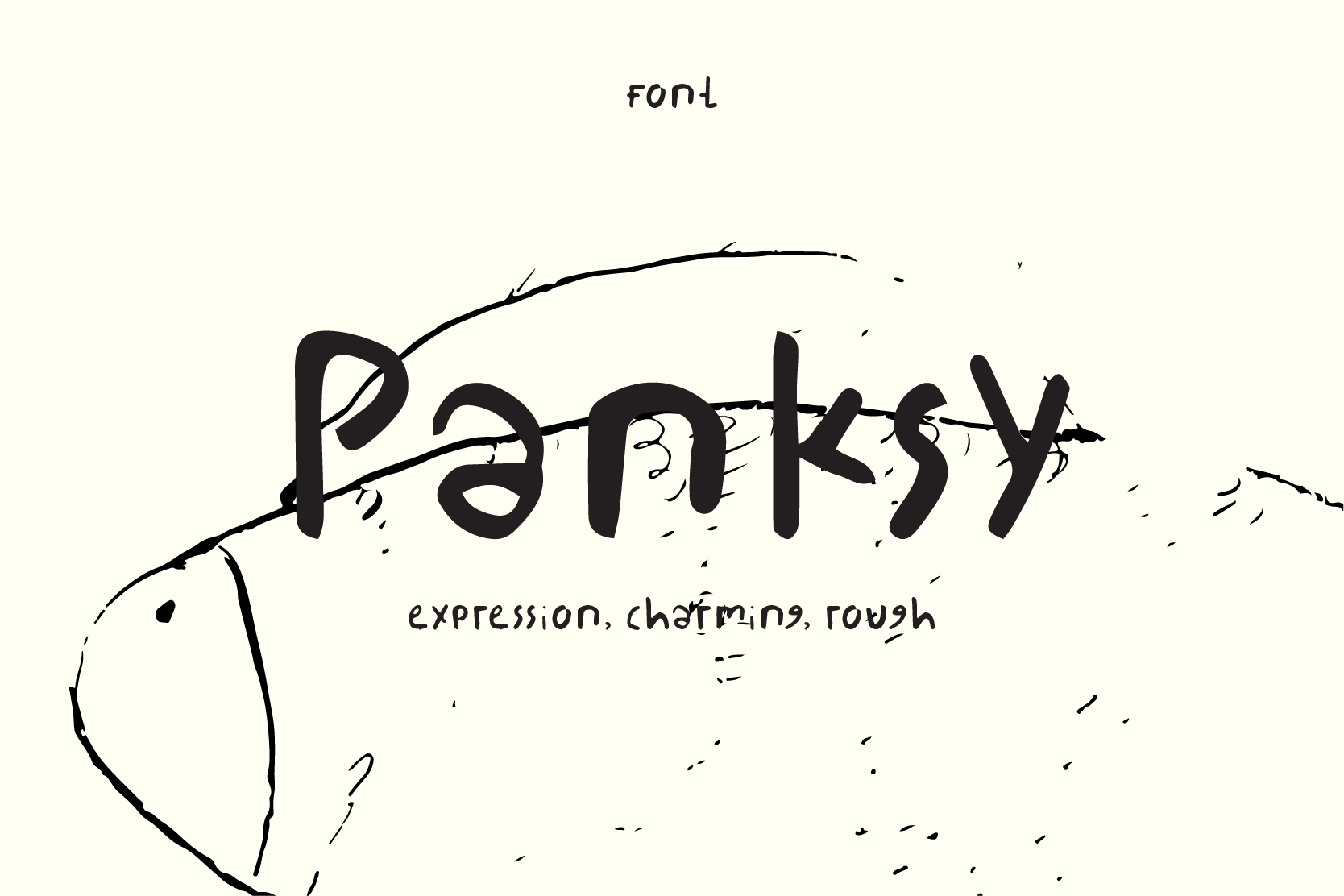
Pansky - Handwriting Font
Pansky is a handwriting font, with authentic lines. Rough, unique, expression, charming, and artsy, it's a keyword to combine this font to your design. Pansky is your companion for creating memorable, engaging content.